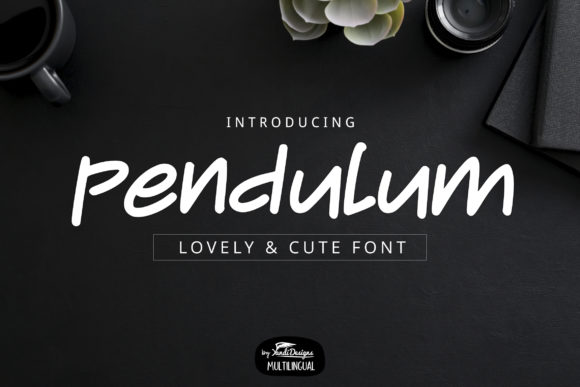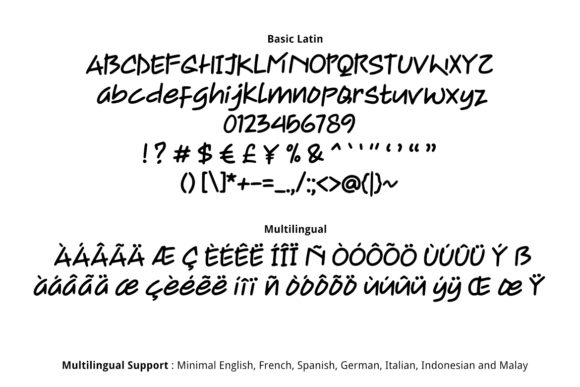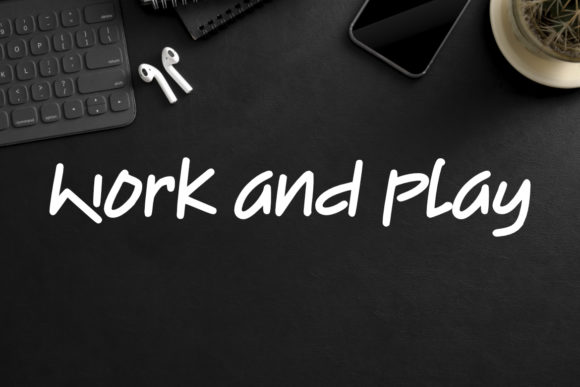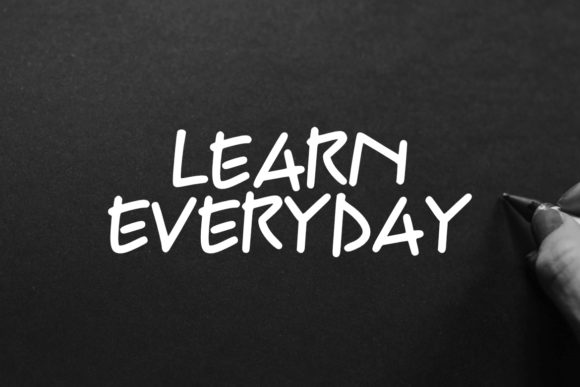
Pendulum Font
About Pendulum Font
Pendulum is a cute yet thick lettered handwritten font. Lovely and childish, this font will look absolutely gorgeous on a variety of school projects or informal design ideas.